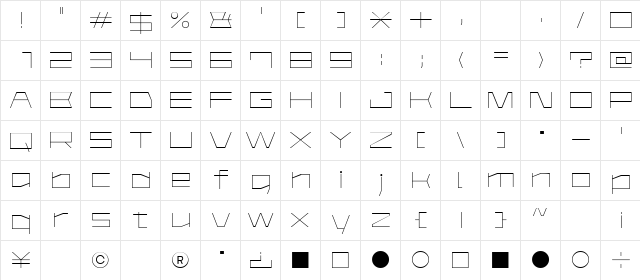
AstraAfsb07LightT Regular Font Preview
AstraAfsb07LightT Regular
Design Context for AstraAfsb07LightT Typeface
AstraAfsb07LightT offers clean, dependable letterforms without strong stylistic allegiance, making it a practical choice for designers who need flexibility. Its slender proportions lend an understated elegance to any composition.